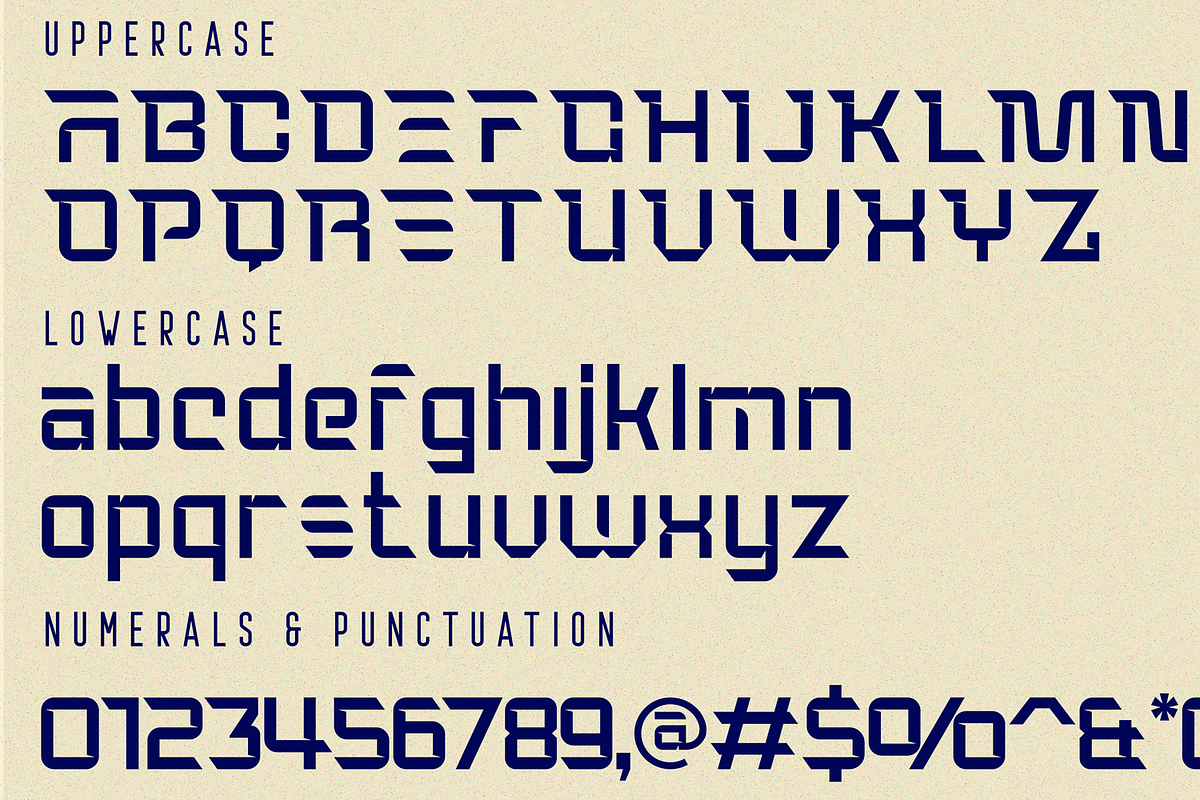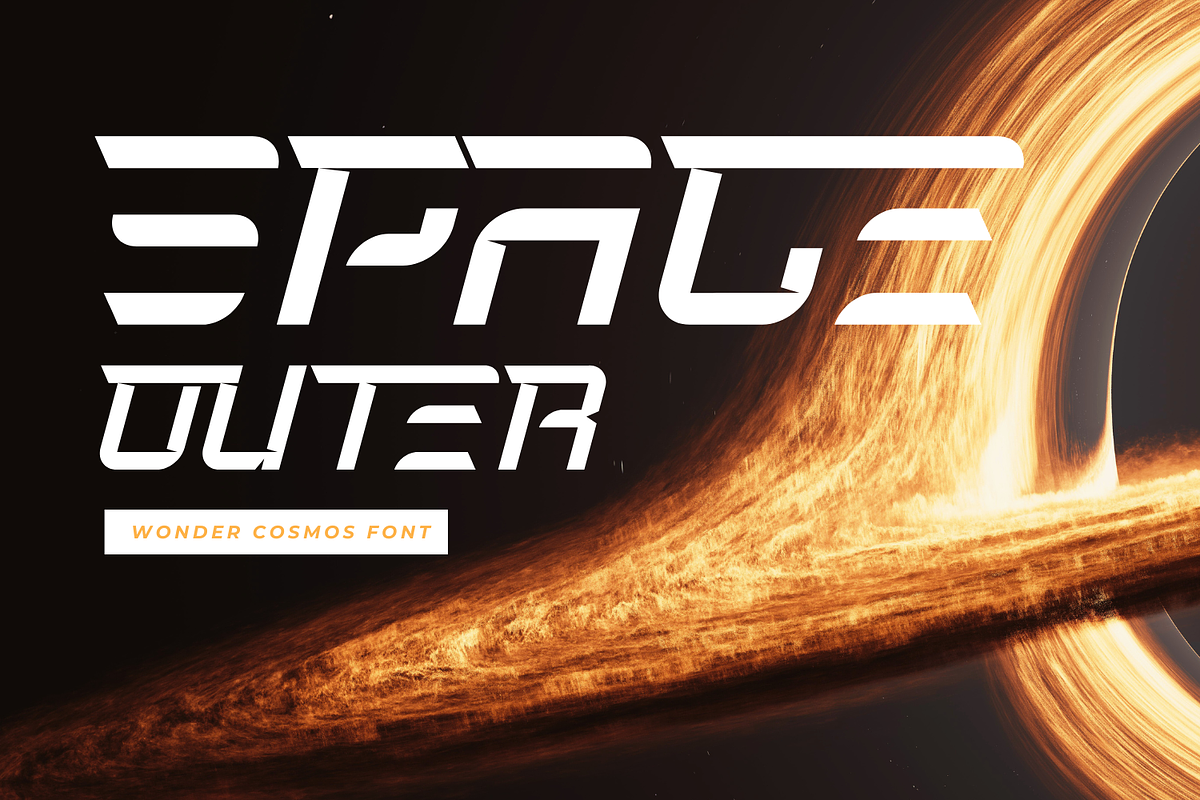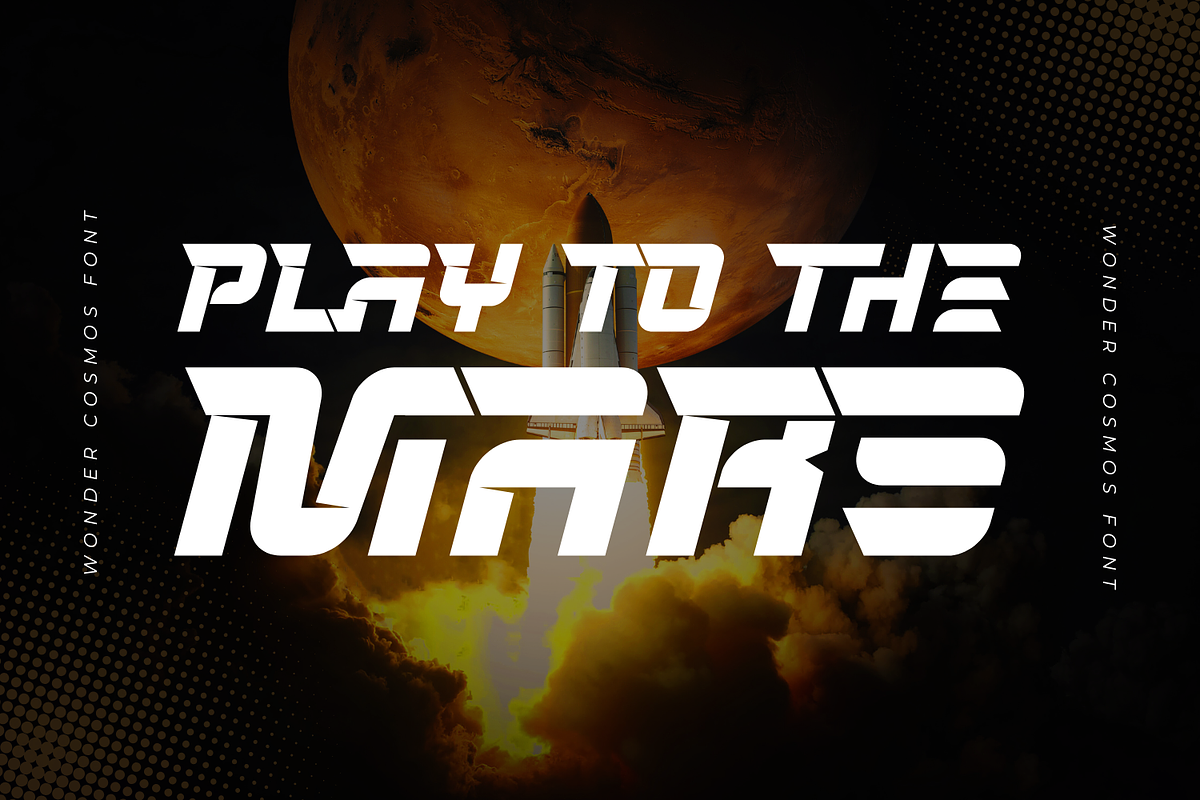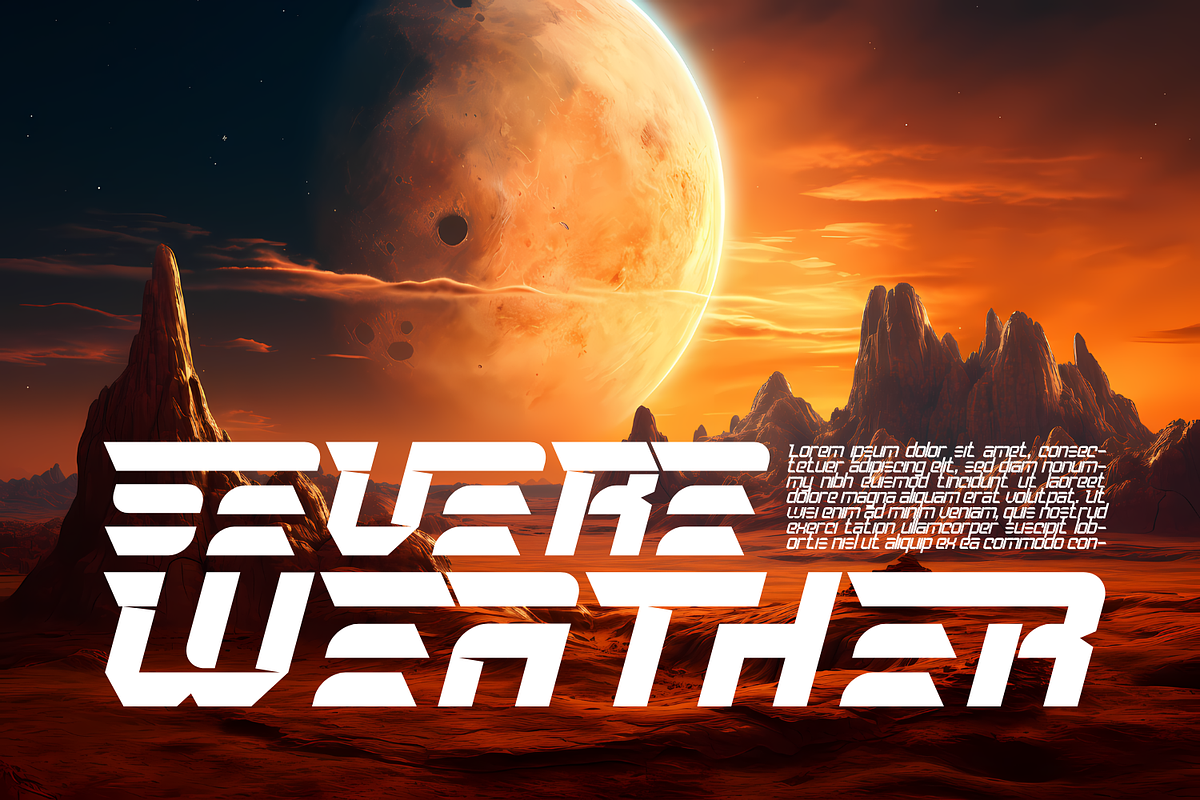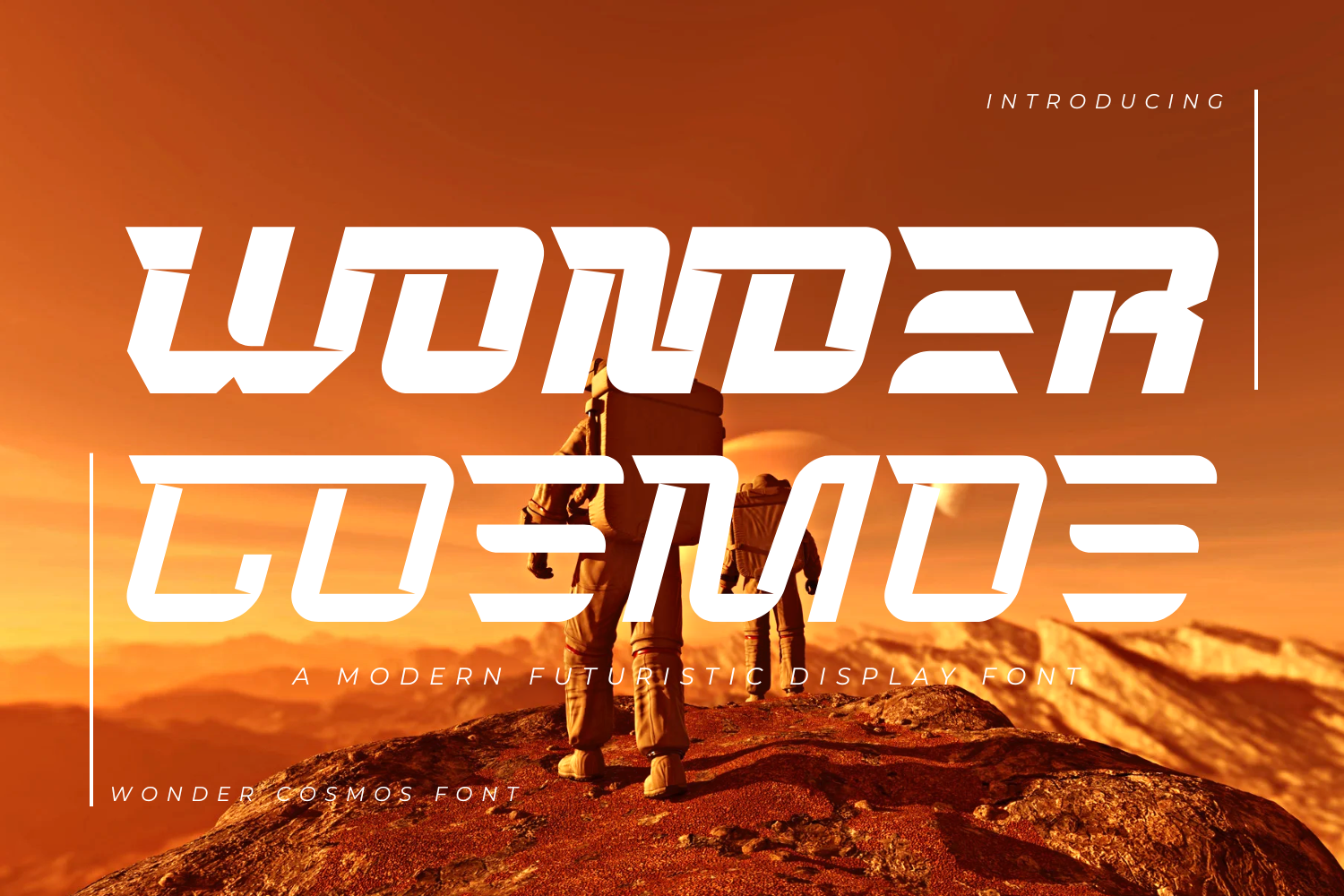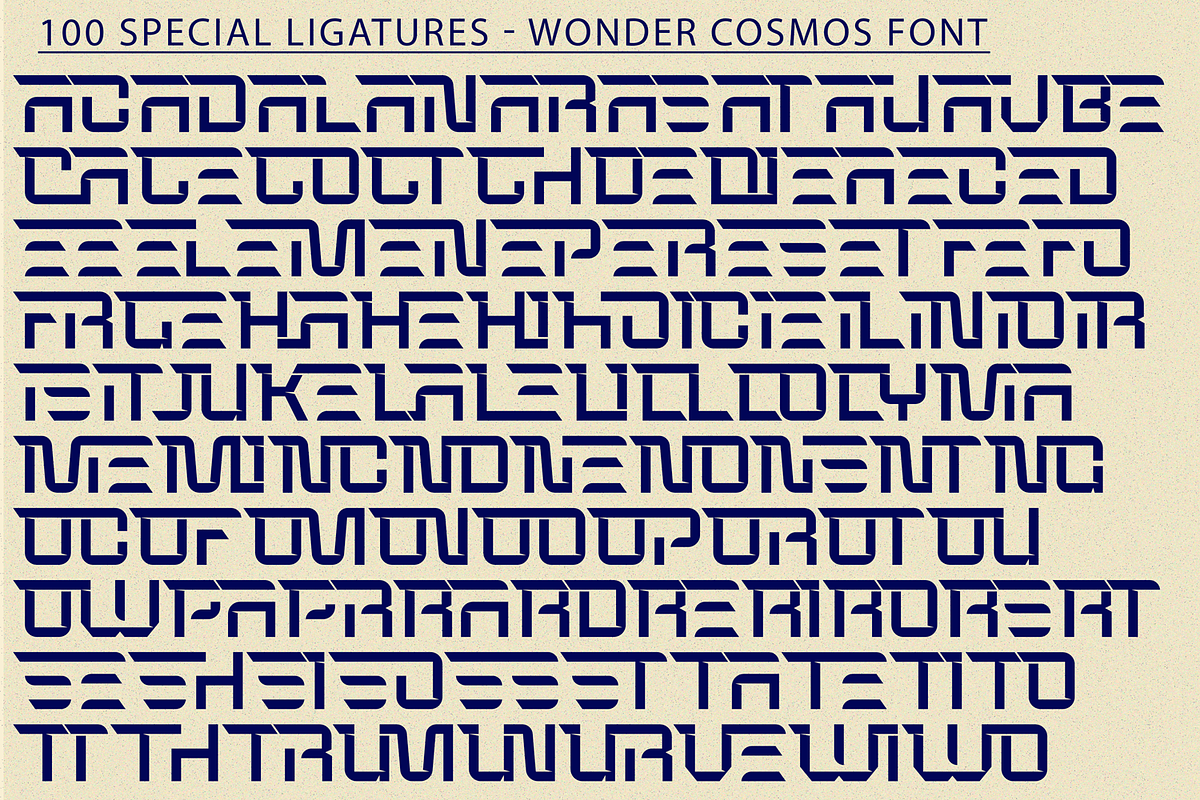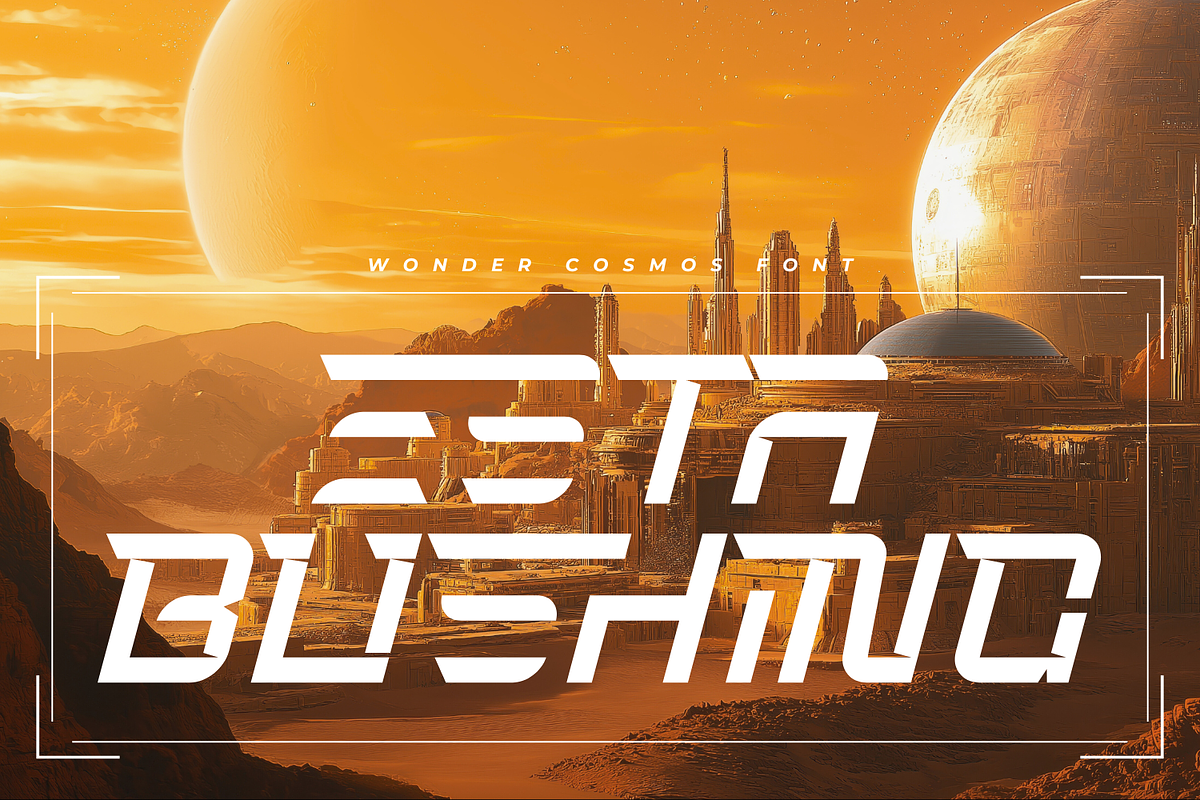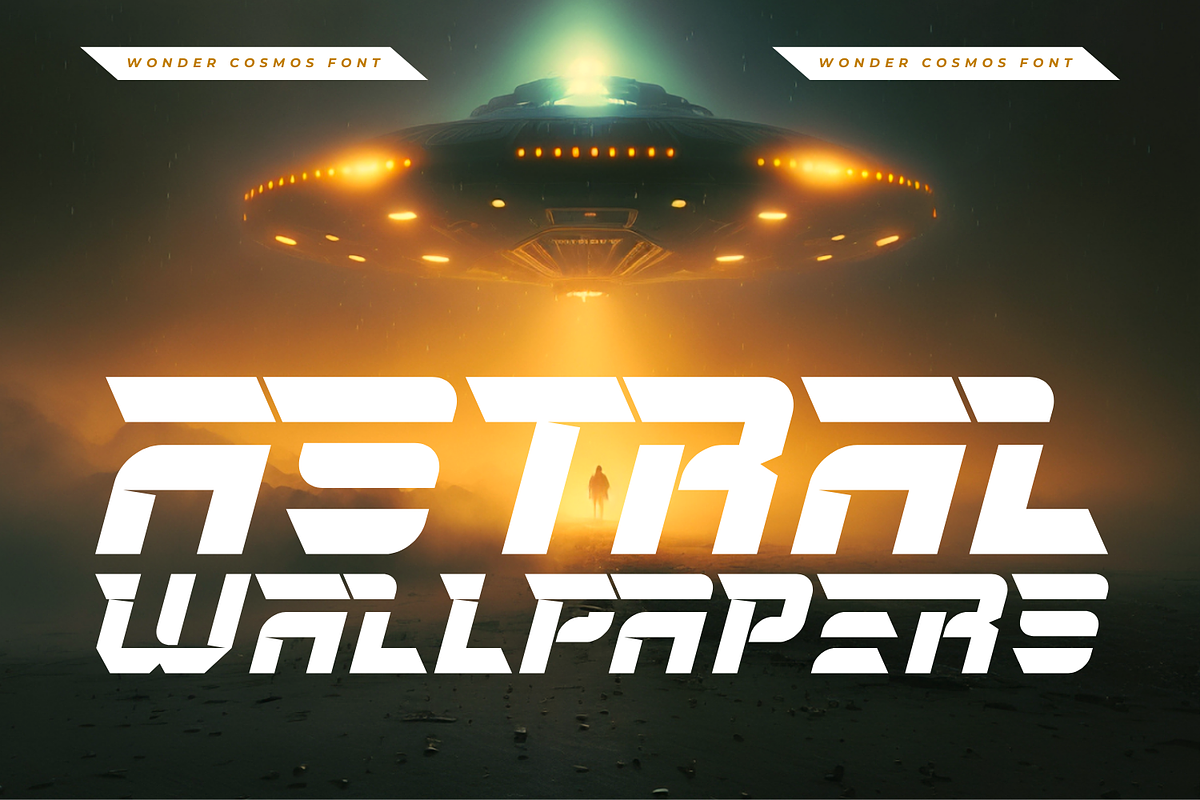
WONDER COSMOS FONT
WONDER COSMOS FONT created in technological futuristic and strong corporate styles both. It's a sans based font with unique lowercase that will make your design looks futuristic and modern. You can use this font for any purpose, especially to make logotype. This font is suitable for various purpose such as movies, posters, logos, labels, webfont and any modern purposes.
WONDER COSMOS was built with OpenType features and includes 100 ligatures, alternate, numbers, punctuation, and it also supports other languages.
AC AD AL AN AR AS AT AU AV BE CA CE CH CO CT DE DI EA EC ED EE EL EM EN EP ER ES ET FE FO FR GE HA HE HI HO IE IC IL IN IO IR IS IT JU KE LA LE LI LL LO LY MA ME MI NC ND NE NG NO NT NS OC OF OM ON OO OP OR OT OU OW PA PR RA RD RE RI RO RS RT SE SH SI SO SS ST TA TE TH TI TO TR TT UM UN UR VE WI WO